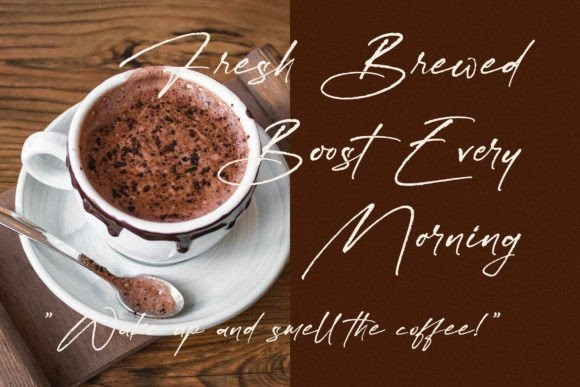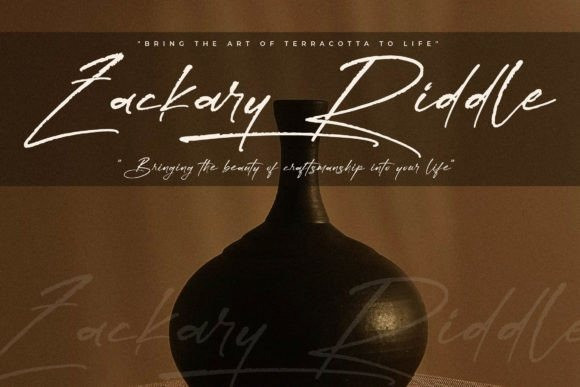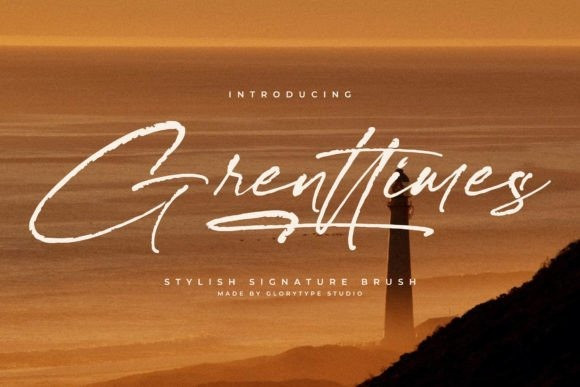
Grenttimes Font
Grenttimes Font is a graceful, modern signature script font. With its beautiful rhythm, this font will help you create gorgeous and classy compositions. Use it for branding projects, invitations, web graphics, cards, and many more!